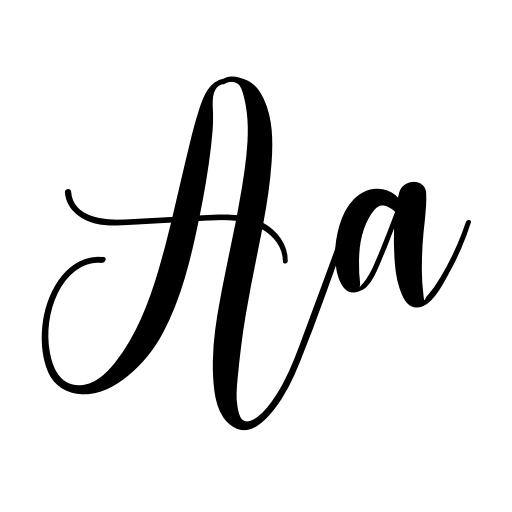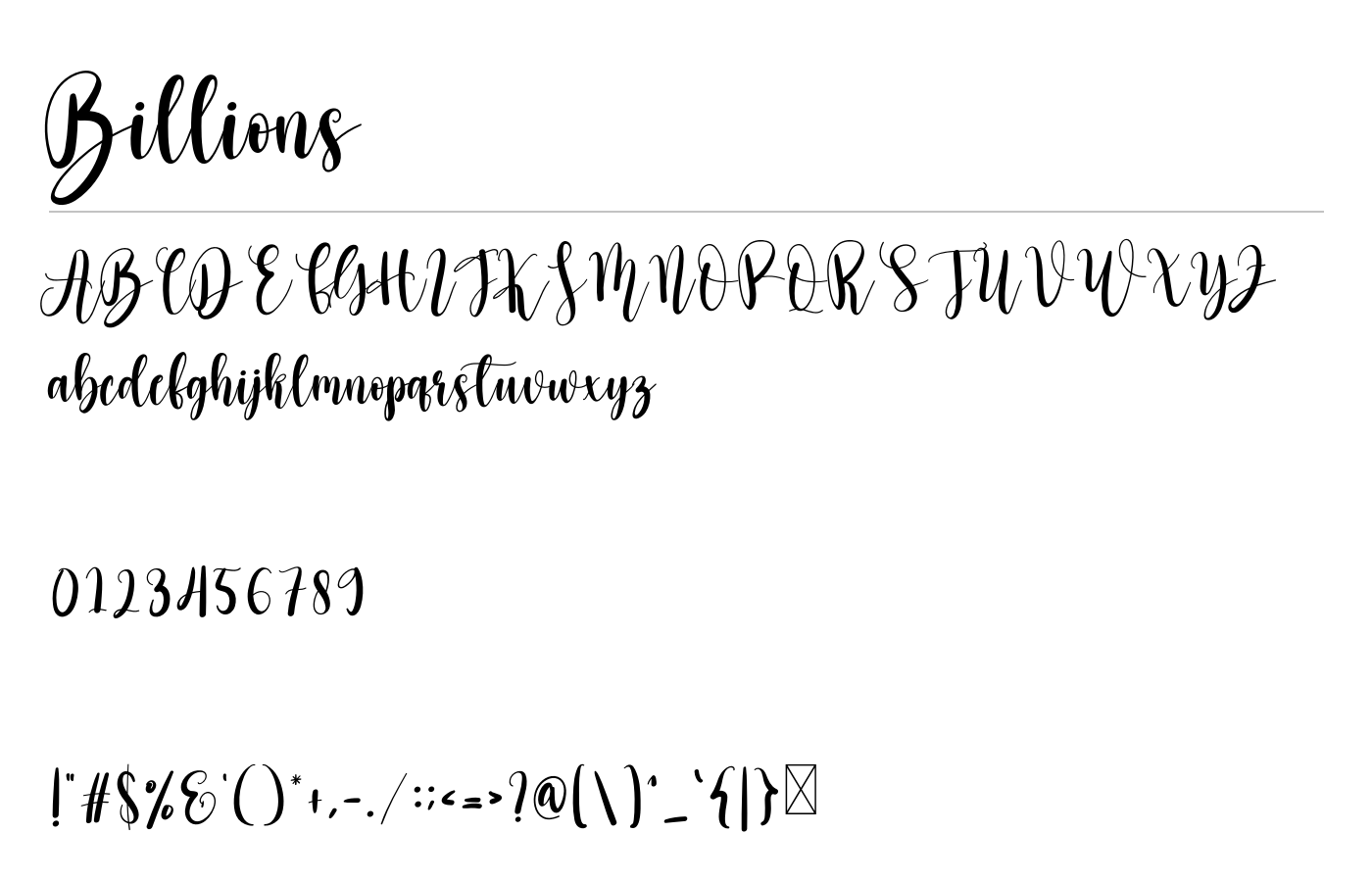
Billions Font is a playful and elegant script typeface featuring fluid, brush-like strokes with a friendly and inviting personality. Its lively letterforms, including distinctive uppercase curls and smooth lowercase connections, make it ideal for creative branding, invitations, and feminine designs that seek a personal and charming touch. This font works beautifully in logos, headlines, and decorative text where a sophisticated yet approachable style is desired.
Billions Font